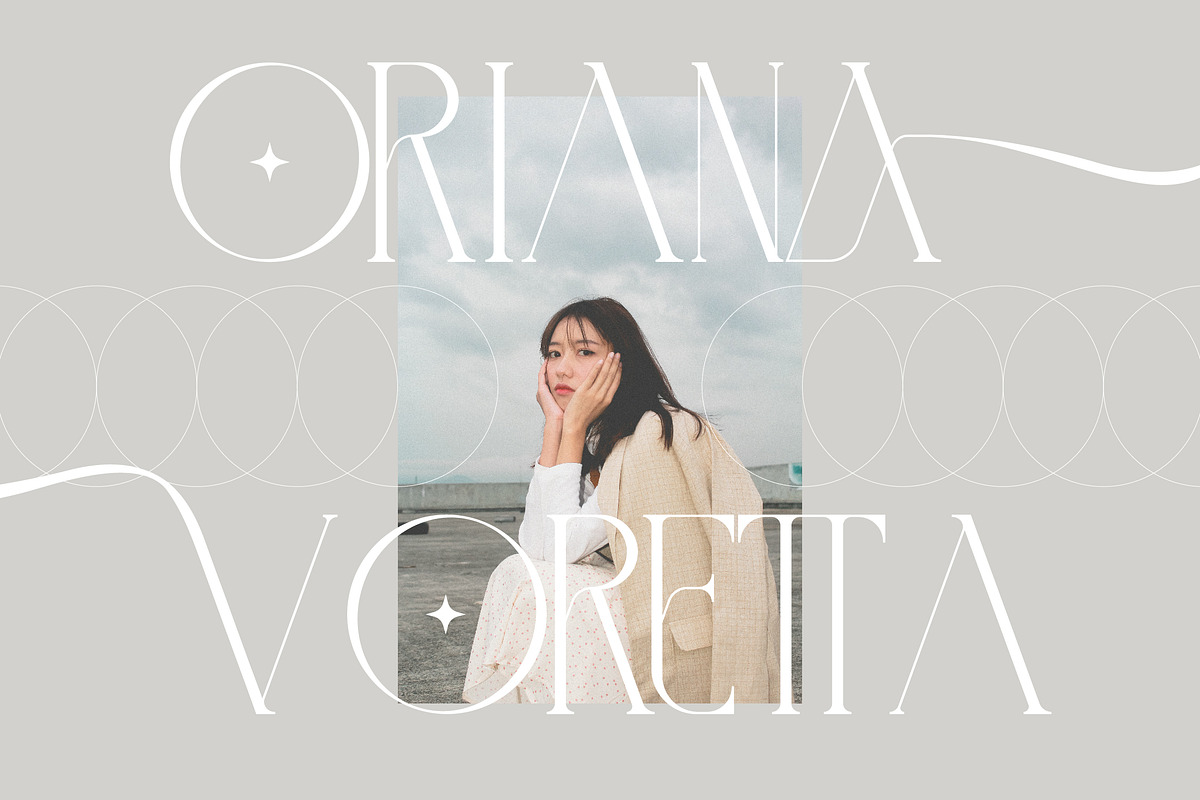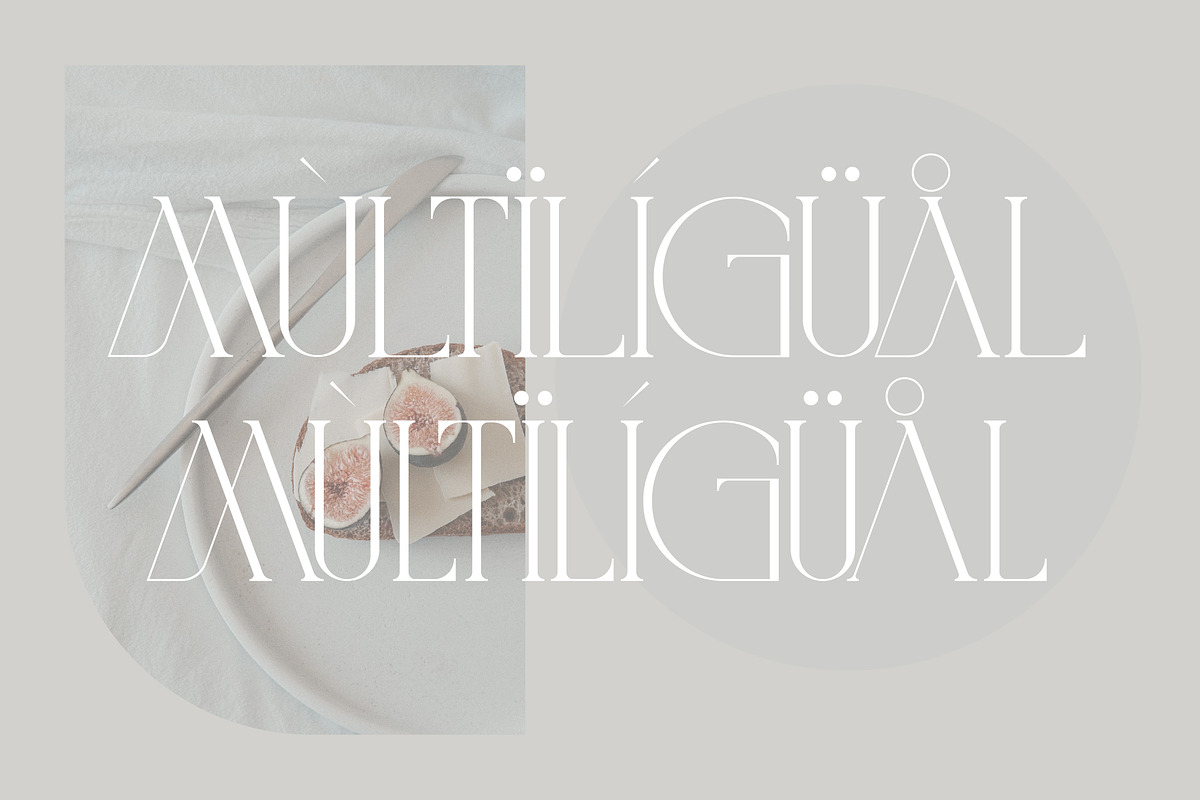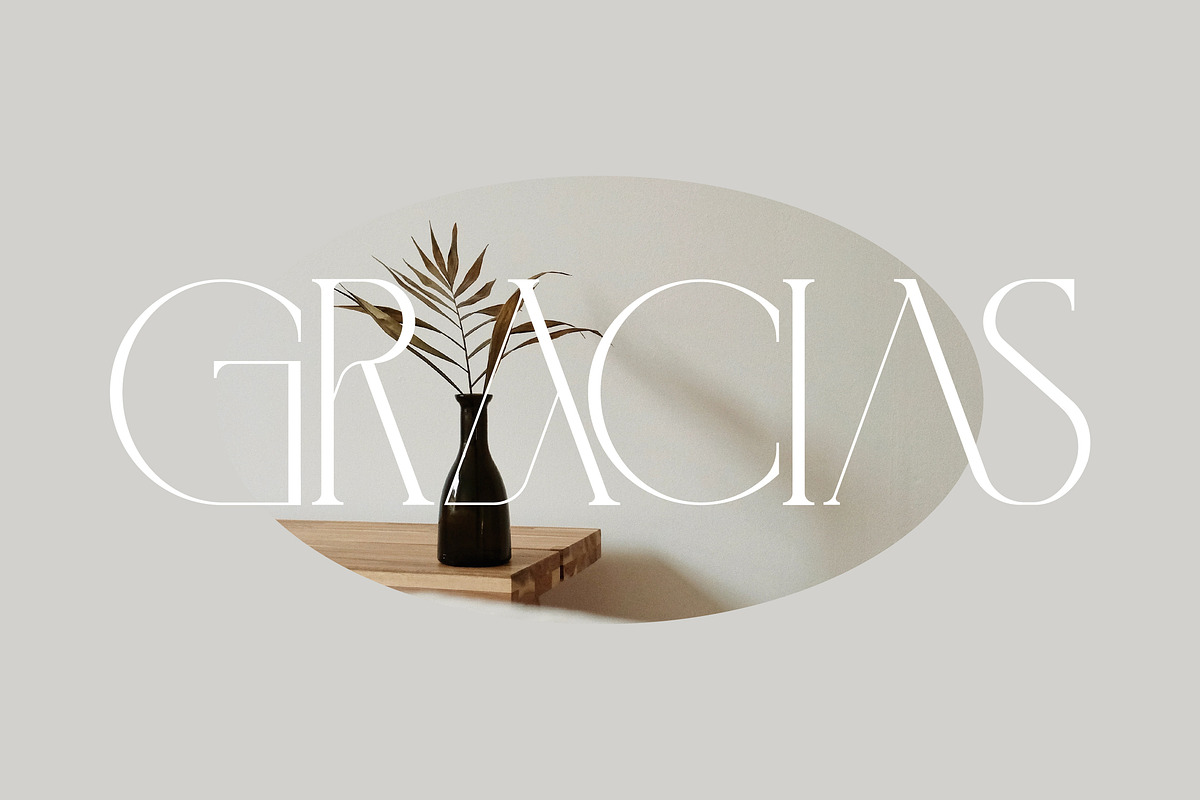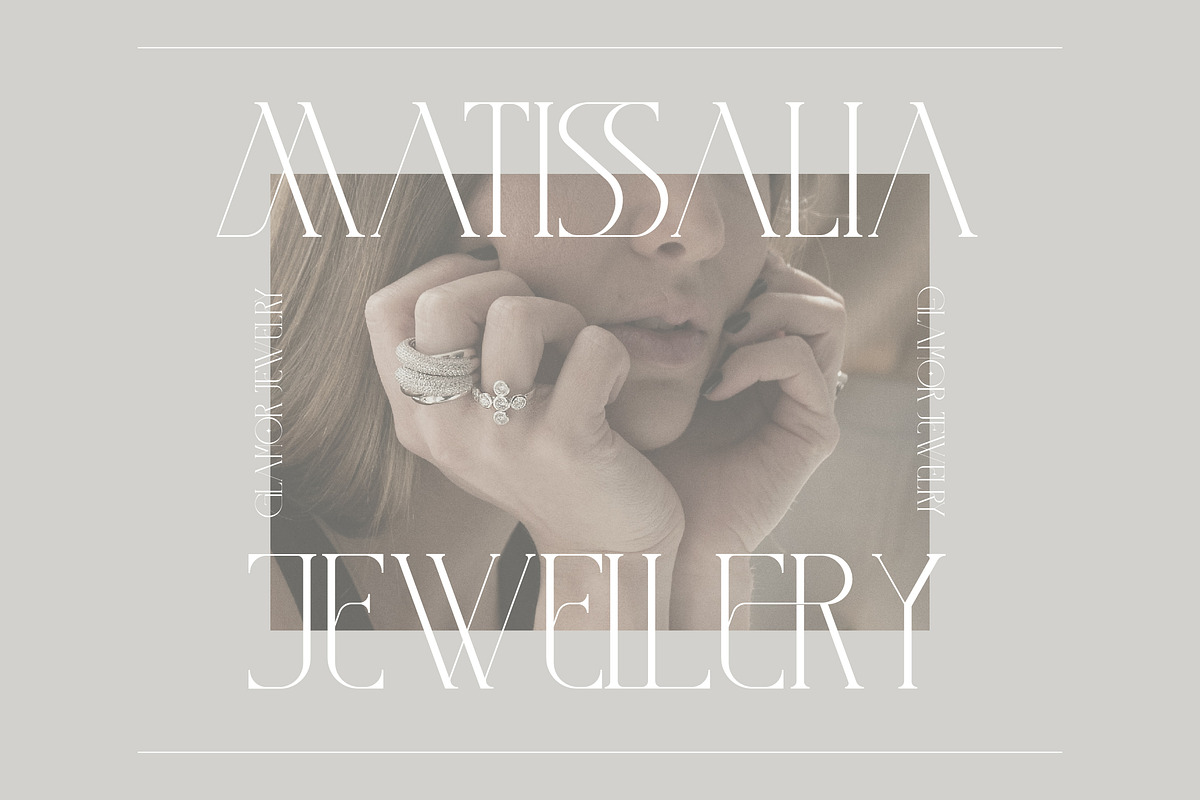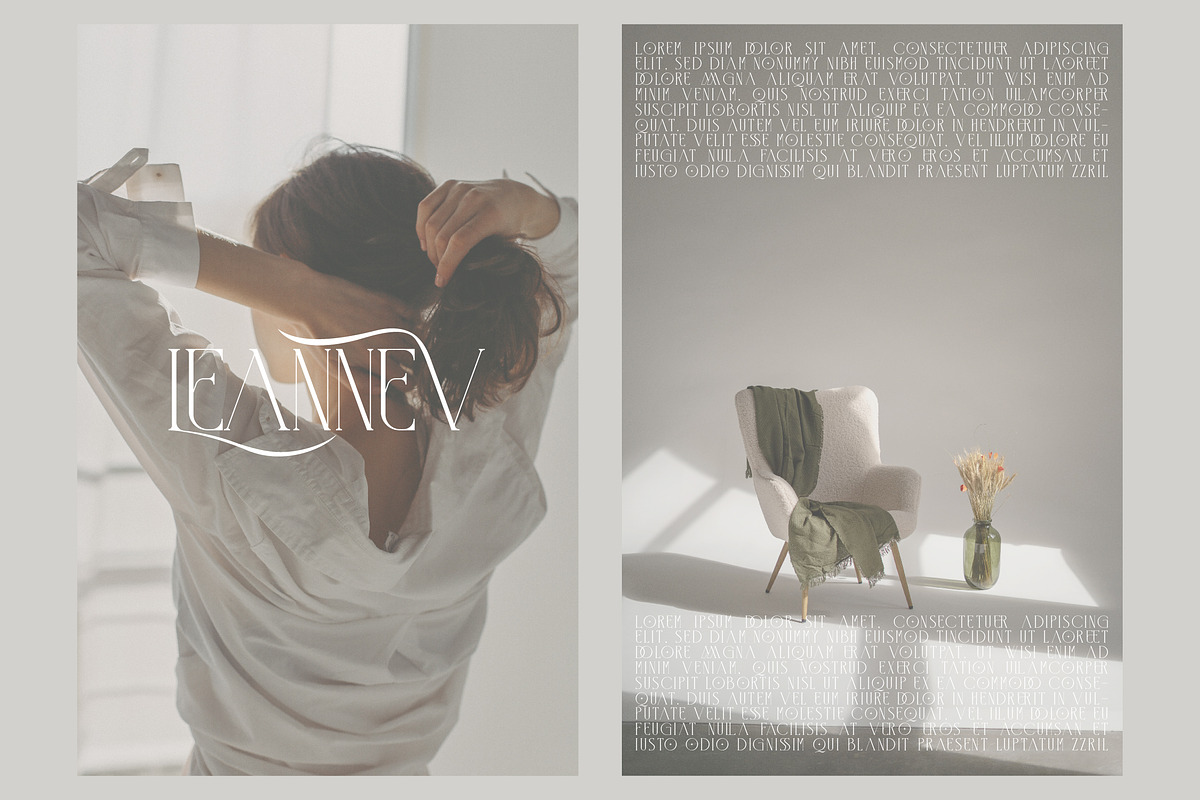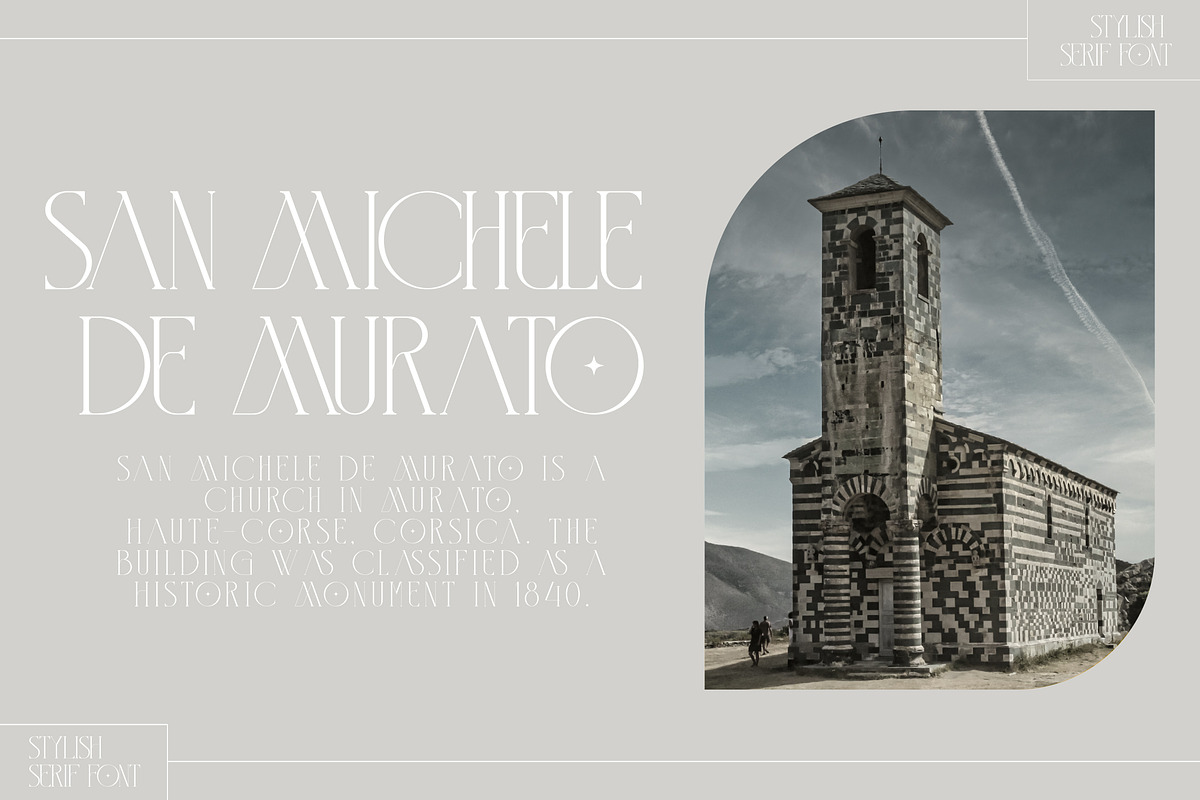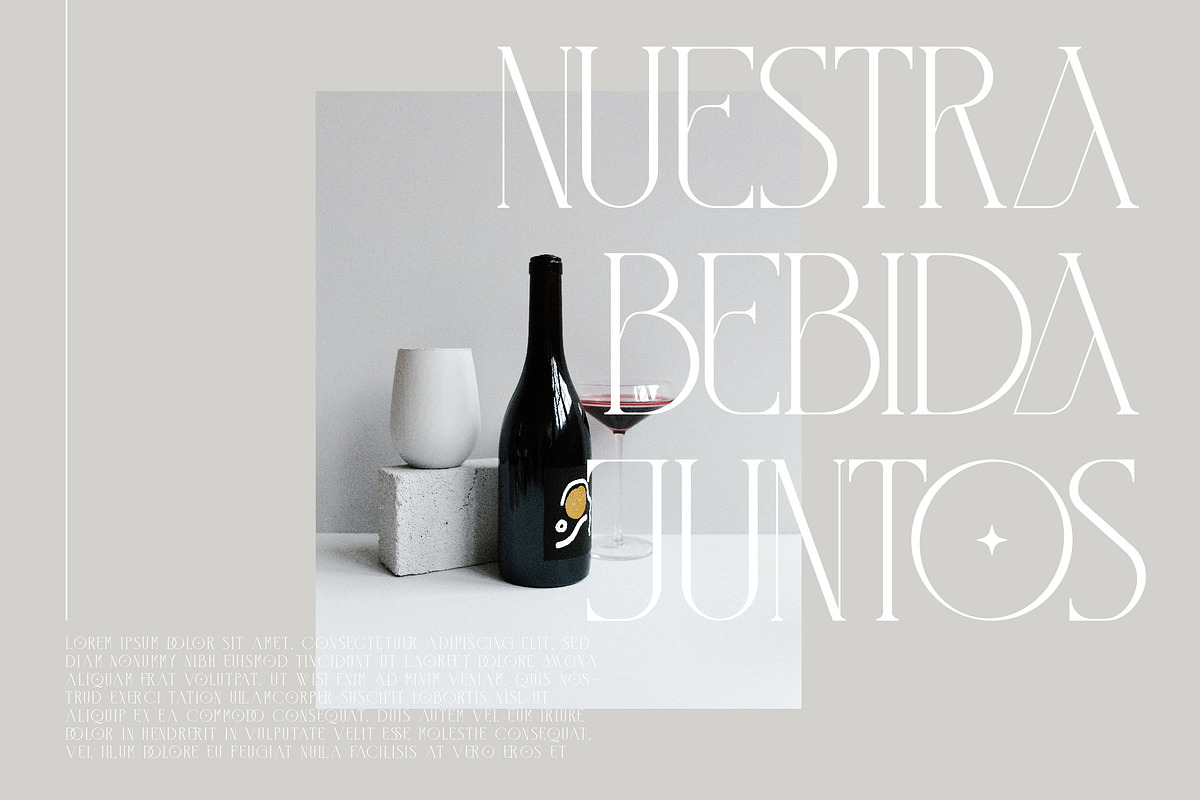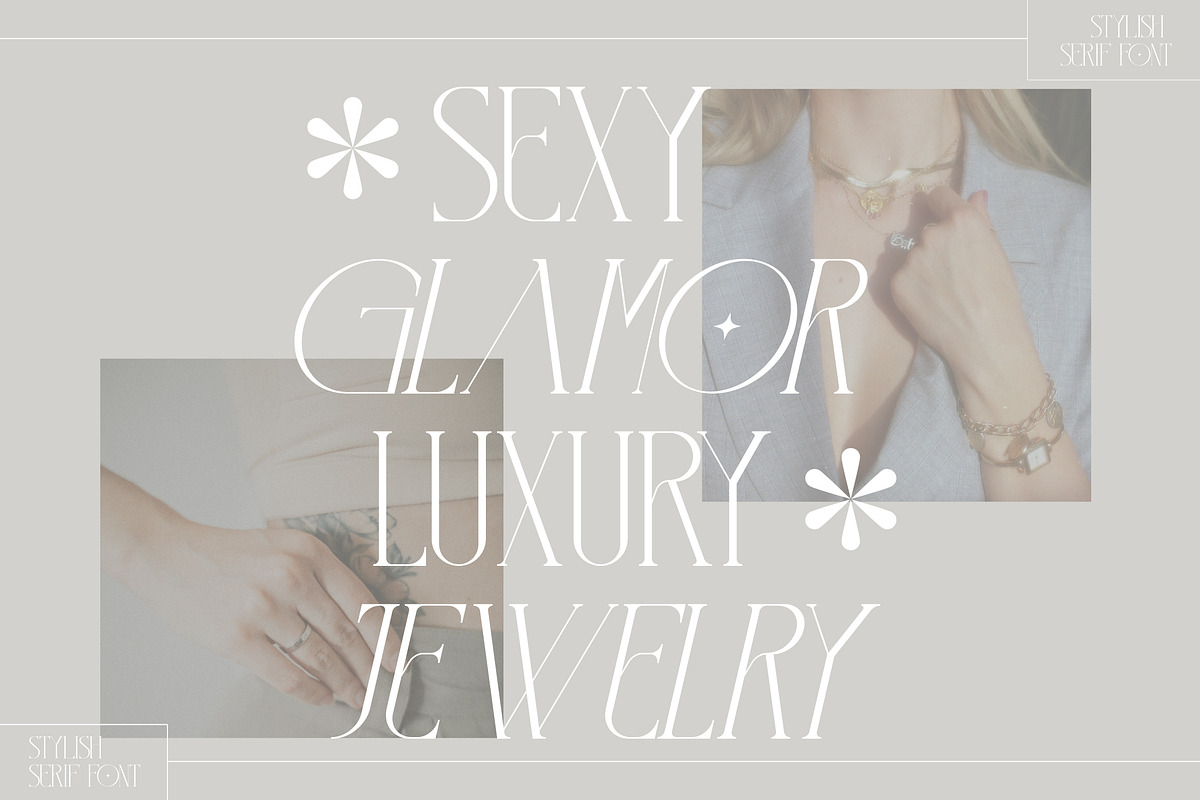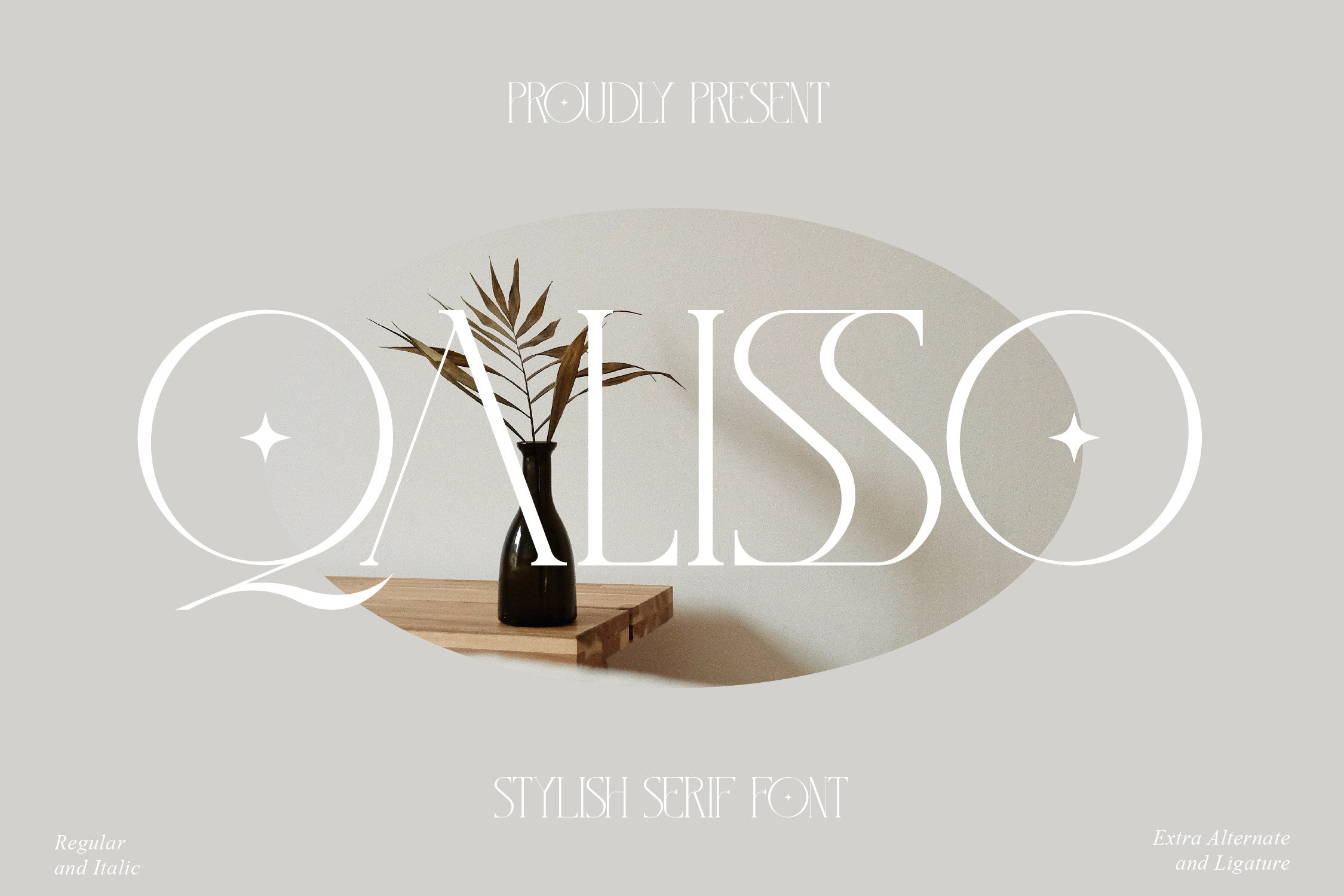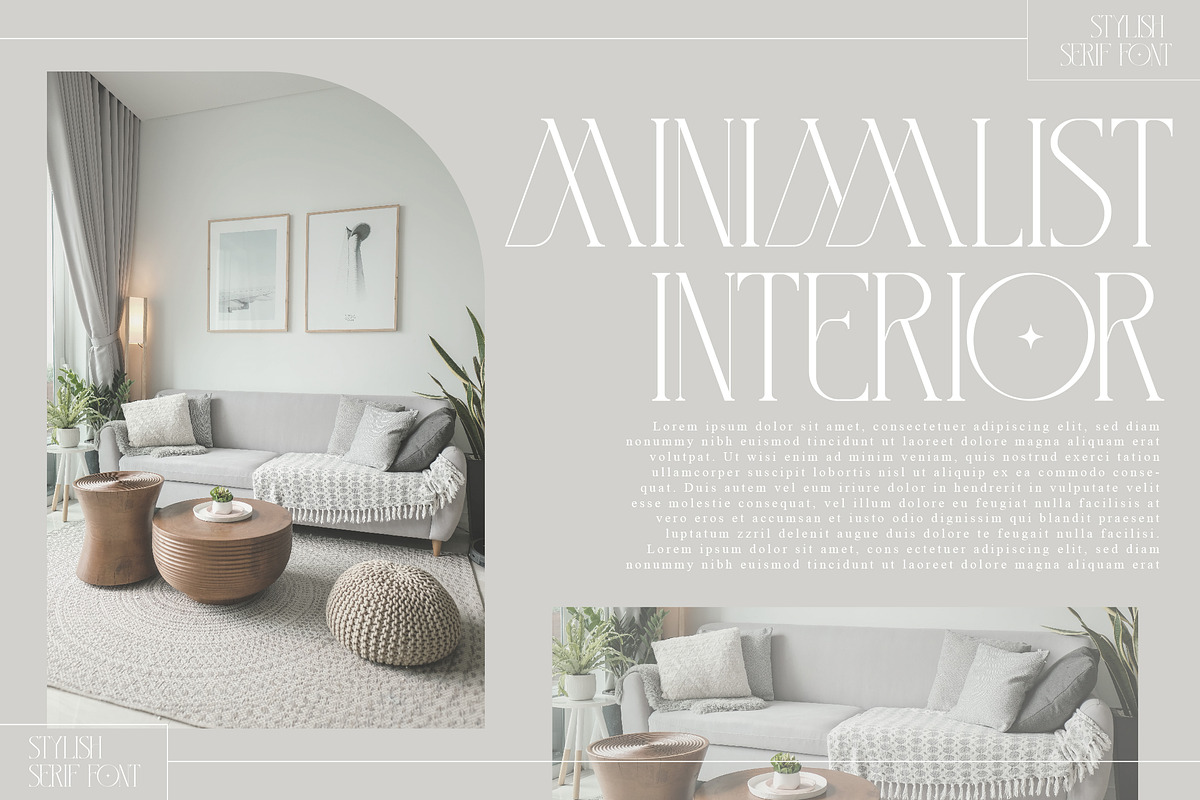
Qalisso Modern Serif Font
Proudly present Qalisso Typeface, created by Storytype, A serif modern and classic typeface that has own unique style & modern look. This typeface is perfect for an elegant & luxury logo, book or movie title design, fashion brand, magazine, clothes, lettering, quotes, and so much more.